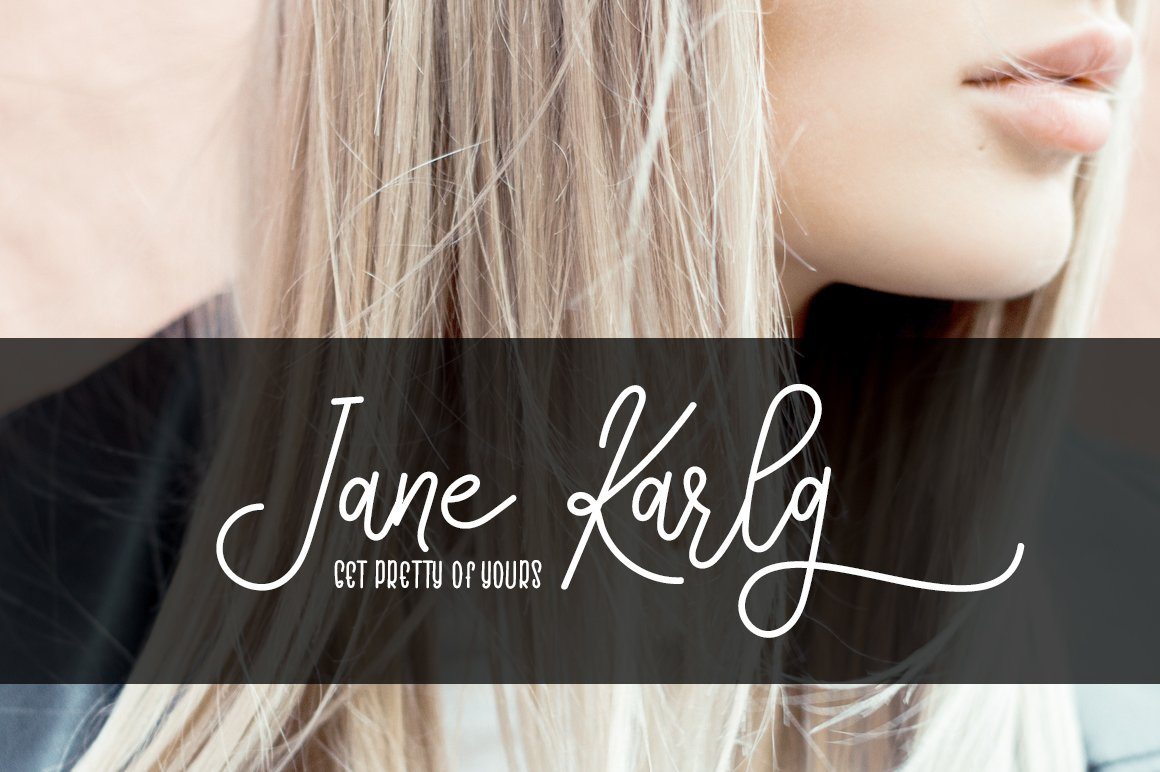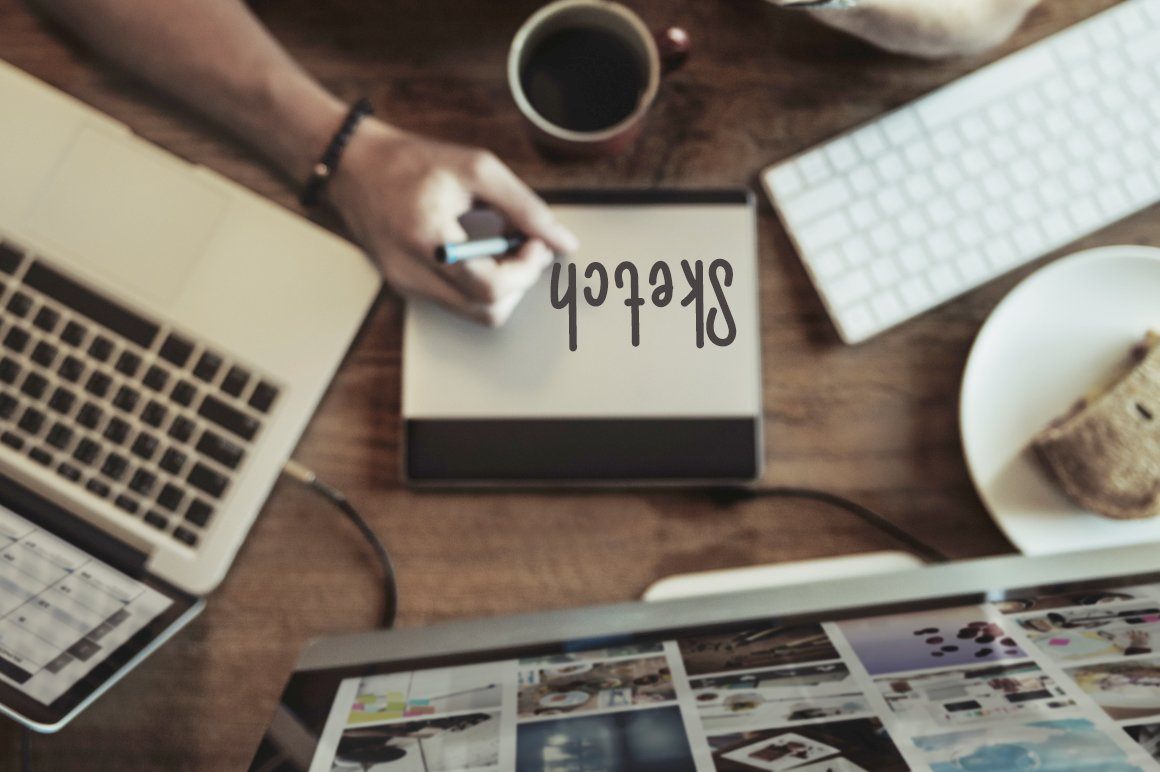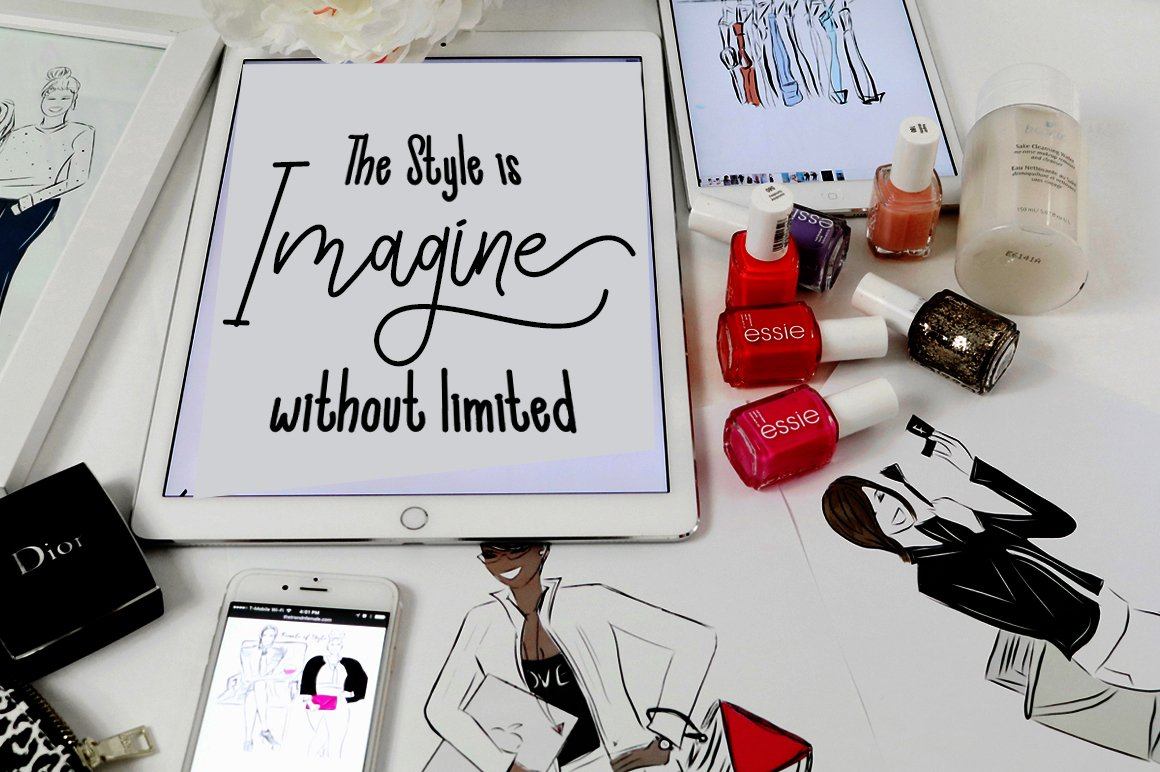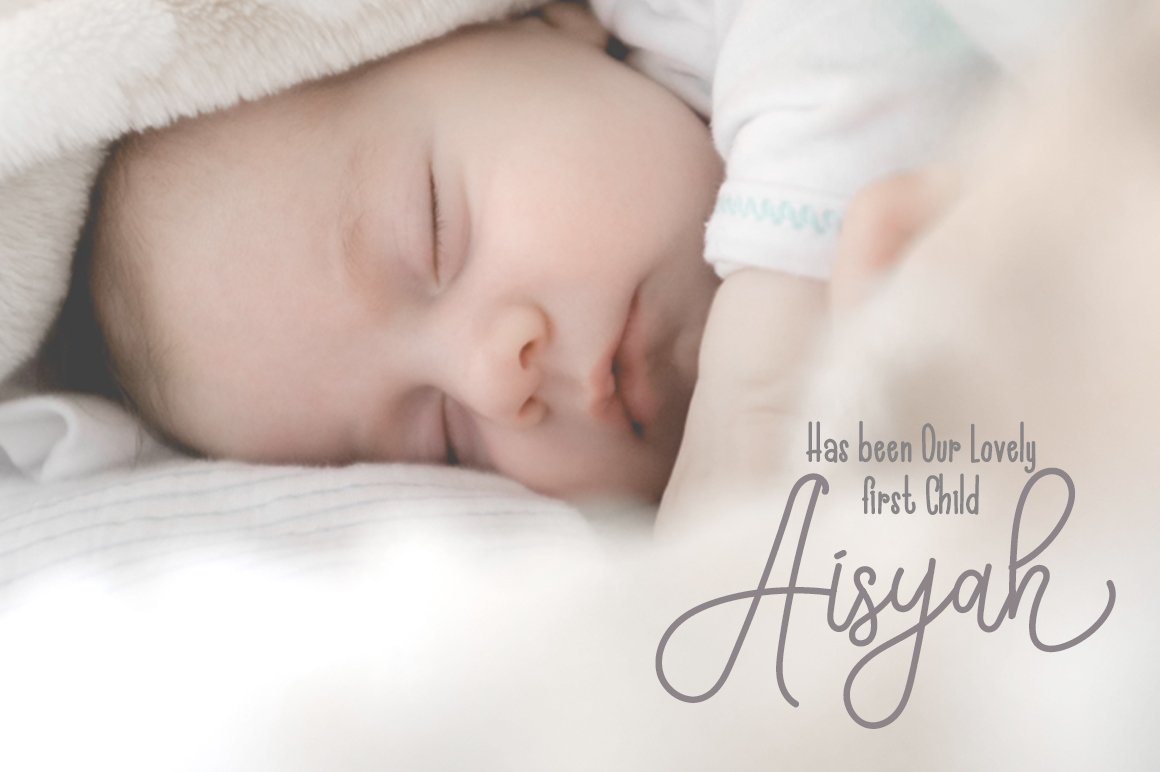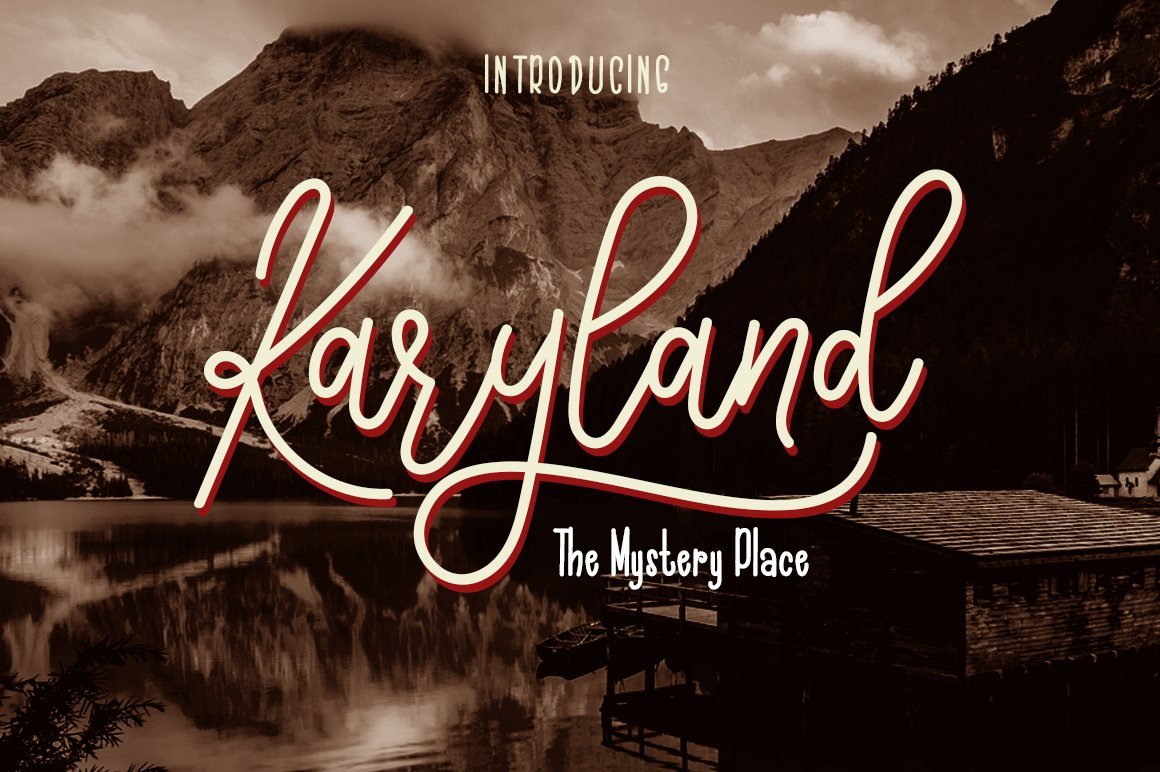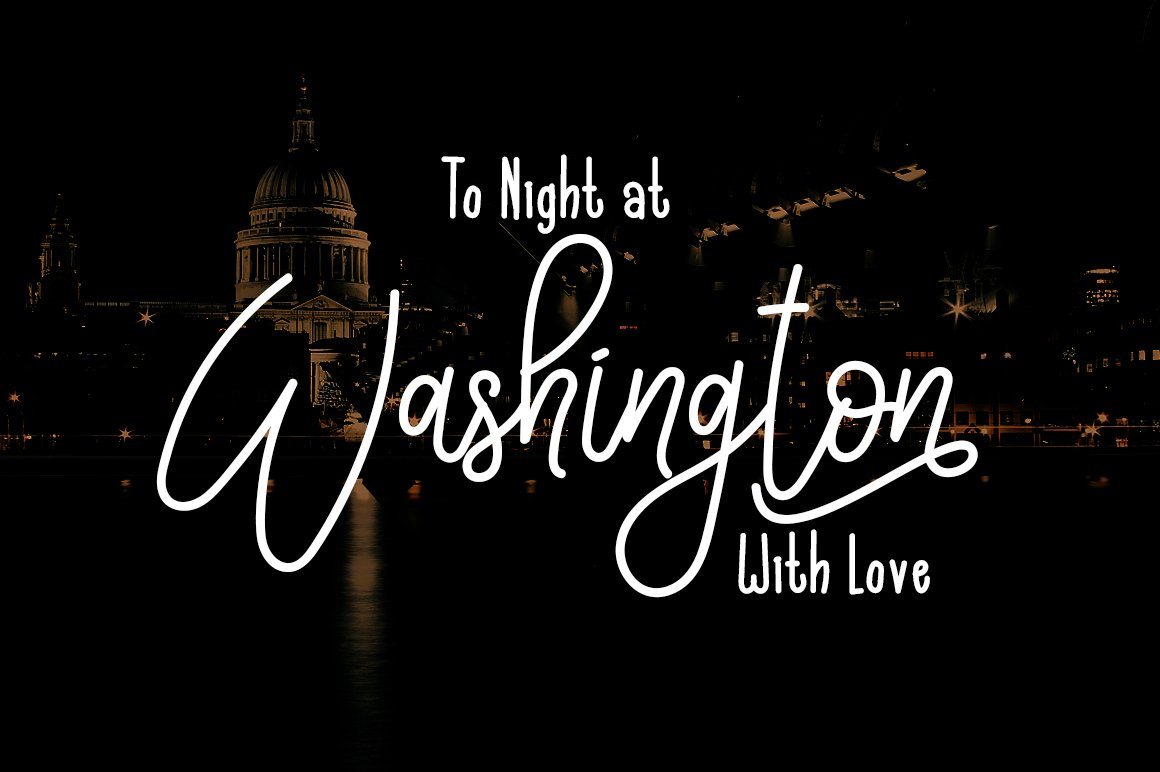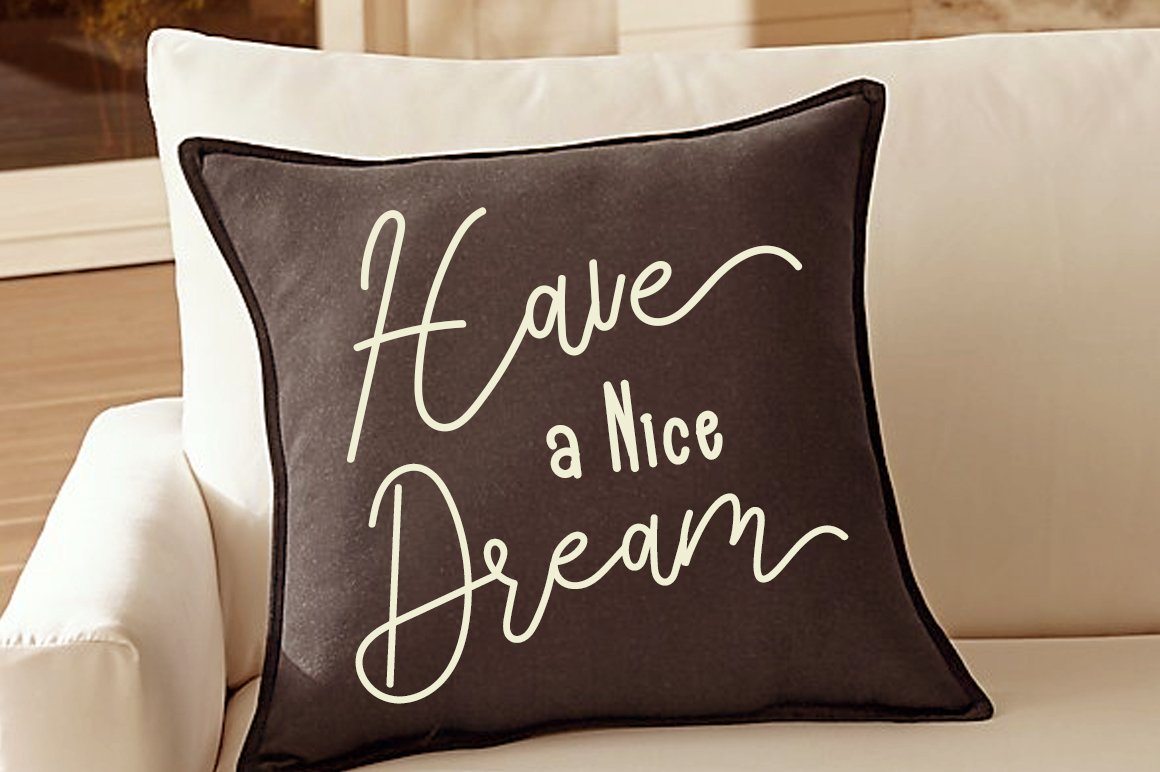
The Karyland / Natural Font Duo
Hello All ‘Karyland Duo’ is a hand lettered font style that is perfect  for greeting cards, branding, stationery design, social media, packaging, magazine layouts, prints, logos and more! This unique font features complete lowercase alphabets and uppercase alphabets along with stylistic  alternates to create a truly handwritten look and feel. ‘Karyland Duo’ has a variety of unique, coded features to create compelling, handmade outcomes. Multilingual support is included for Western European languages. OTF is included for the full, ‘Karyland’ font duo. Including Product : – Karyland (TTF, OTF) – Karyland Sans (TTF, OTF) Happy Designing! Haksen